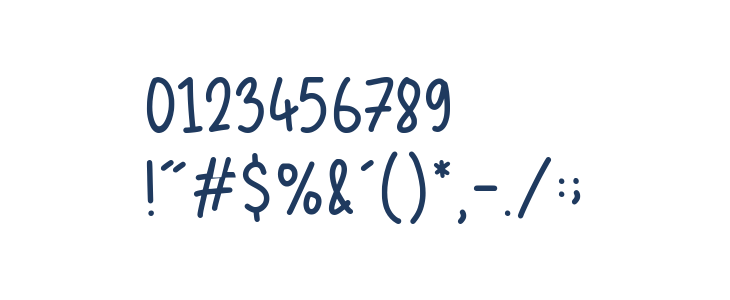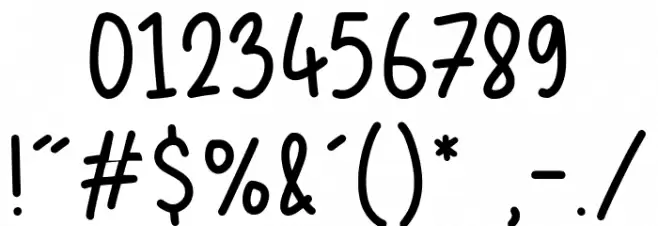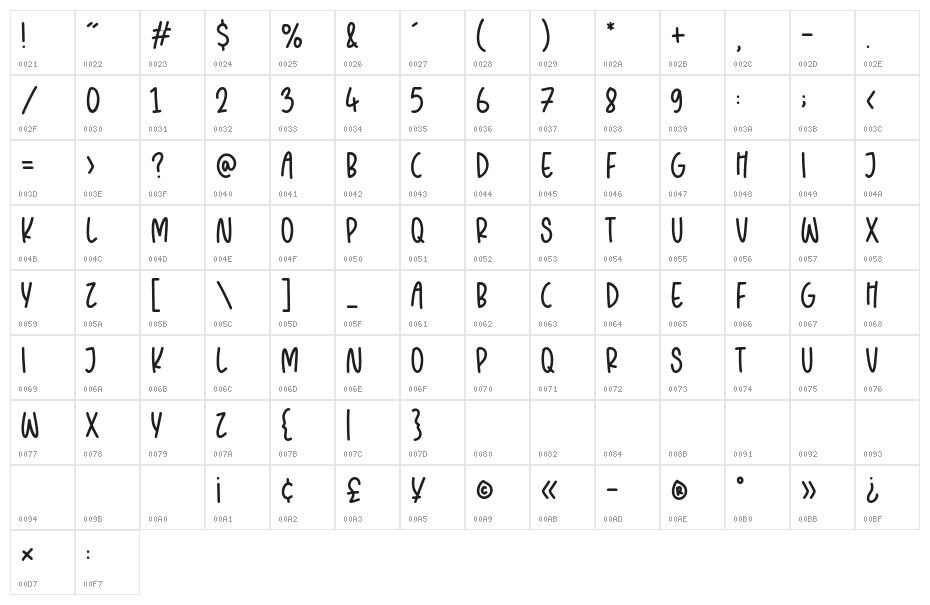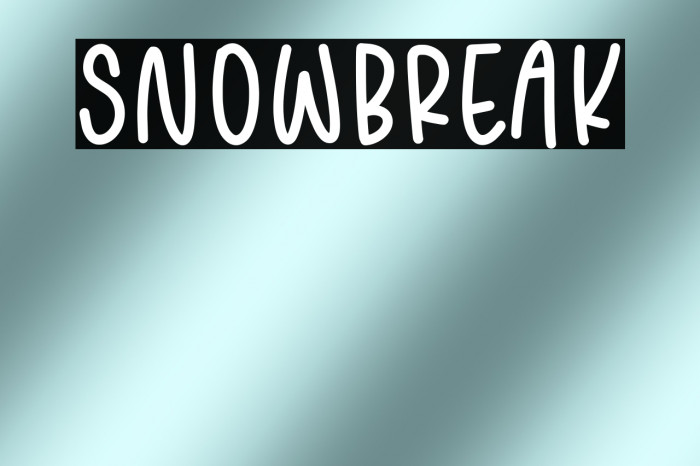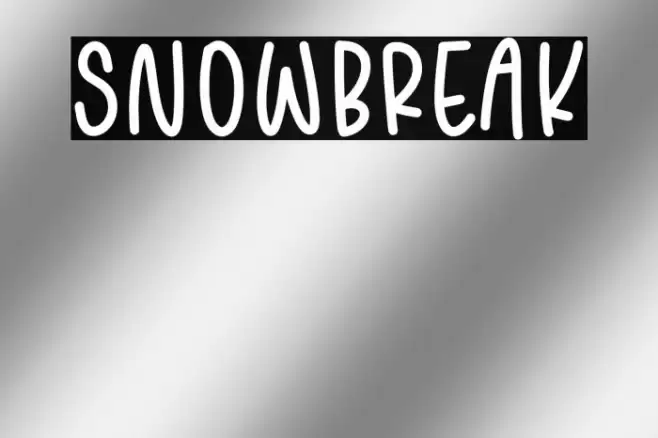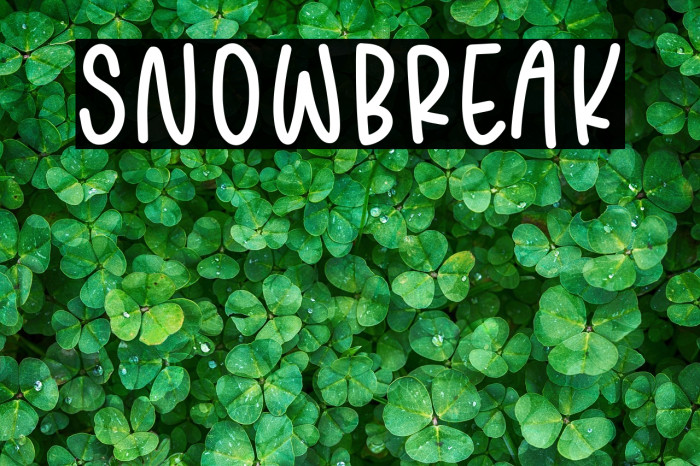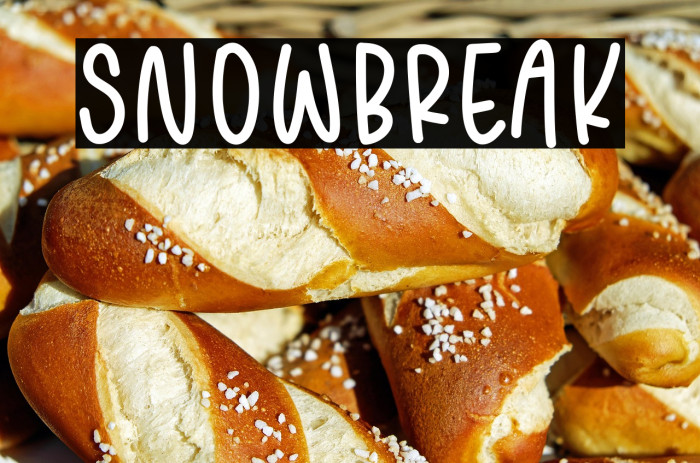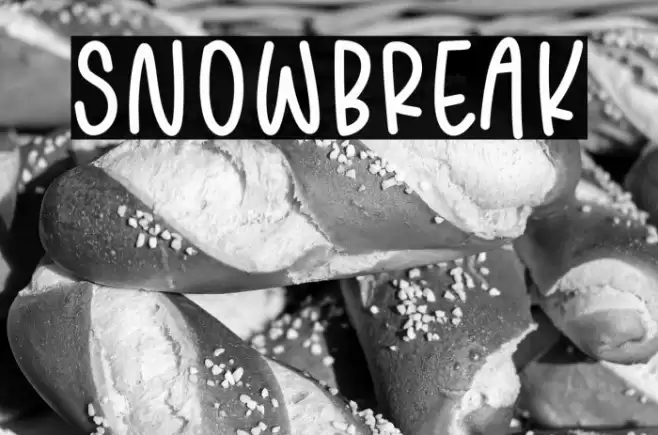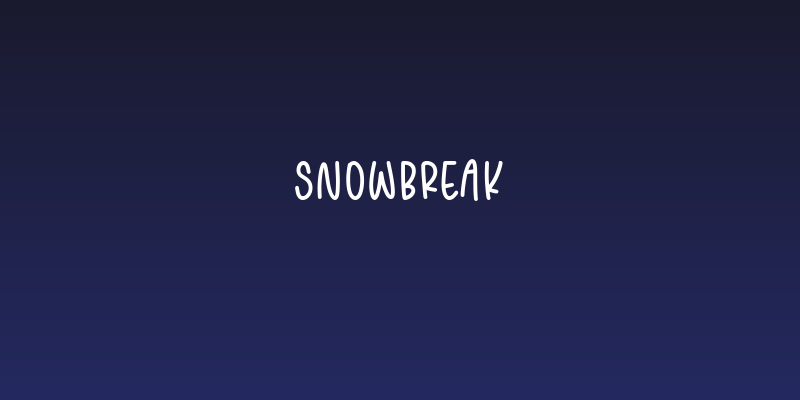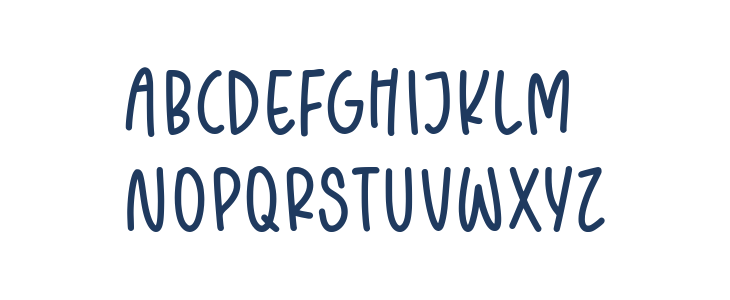
SNOWBREAK Font
SNOWBREAK Description
This font features a playful and casual handwritten style, characterized by its rounded and slightly irregular letterforms. The strokes are consistent in thickness, giving it a uniform appearance while maintaining a friendly and approachable feel. The letters are slightly tilted, adding to the informal aesthetic. The numerals and special characters follow the same style, ensuring cohesion across all elements. This font is well-suited for projects that require a personal touch, such as greeting cards, children's books, or informal branding.
| Proposed Projects | Ideal for greeting cards, children's books, informal branding, and playful designs. |